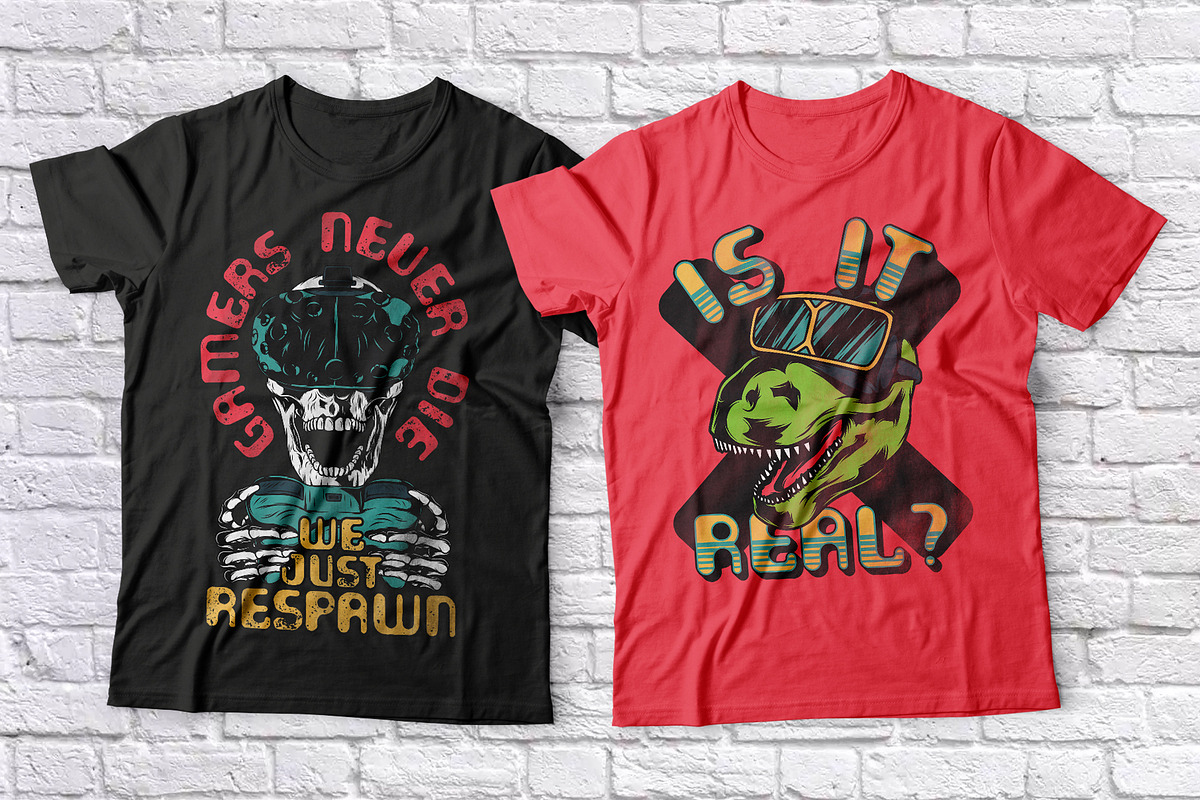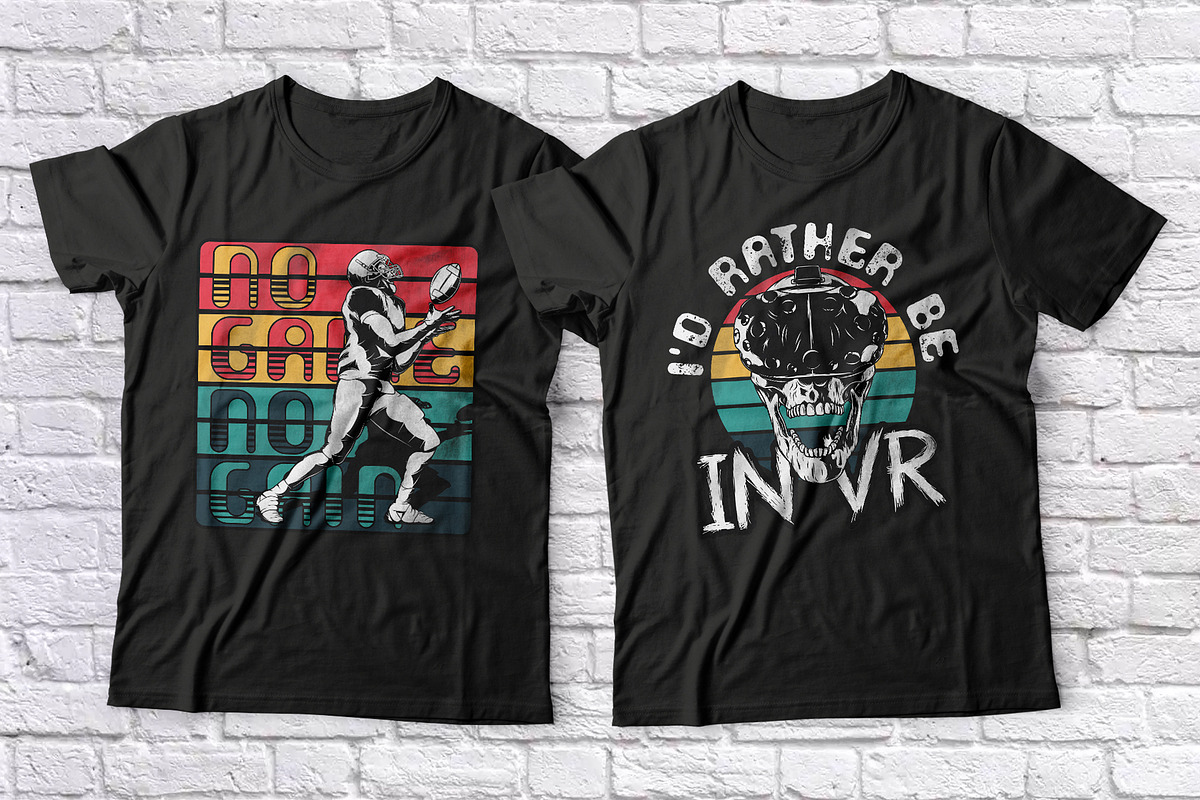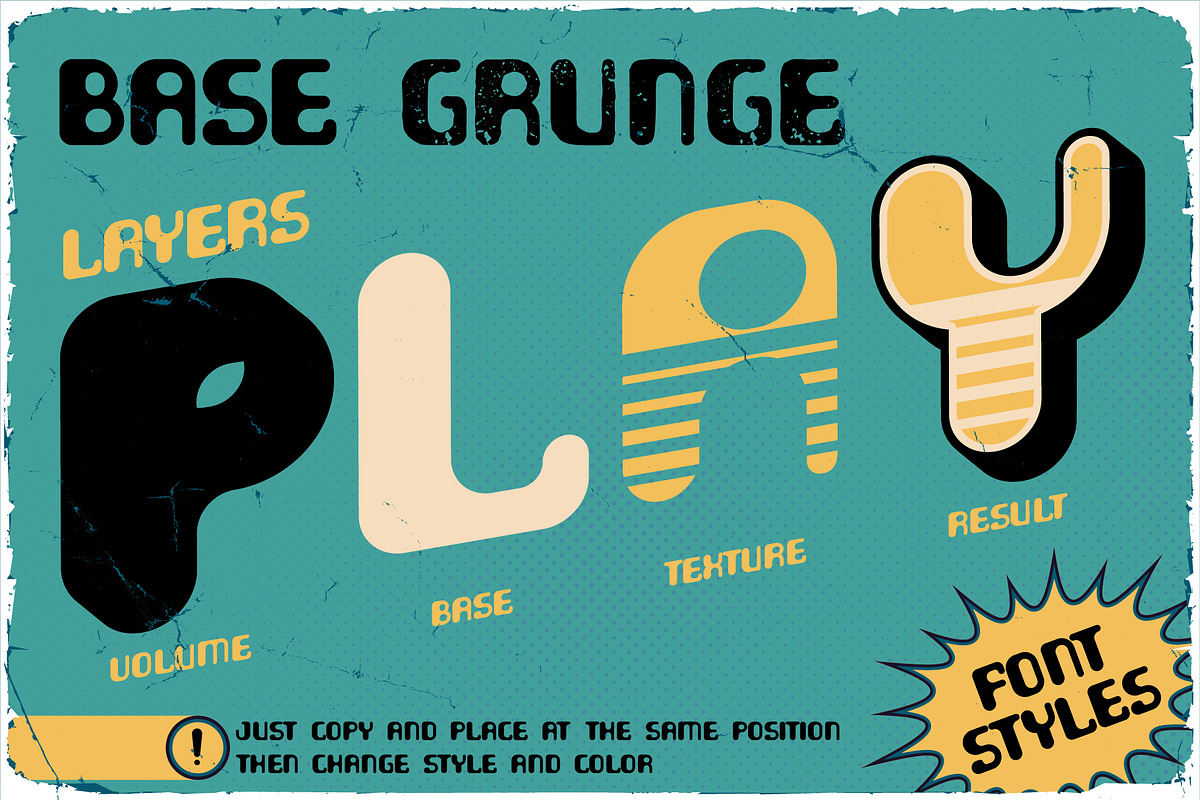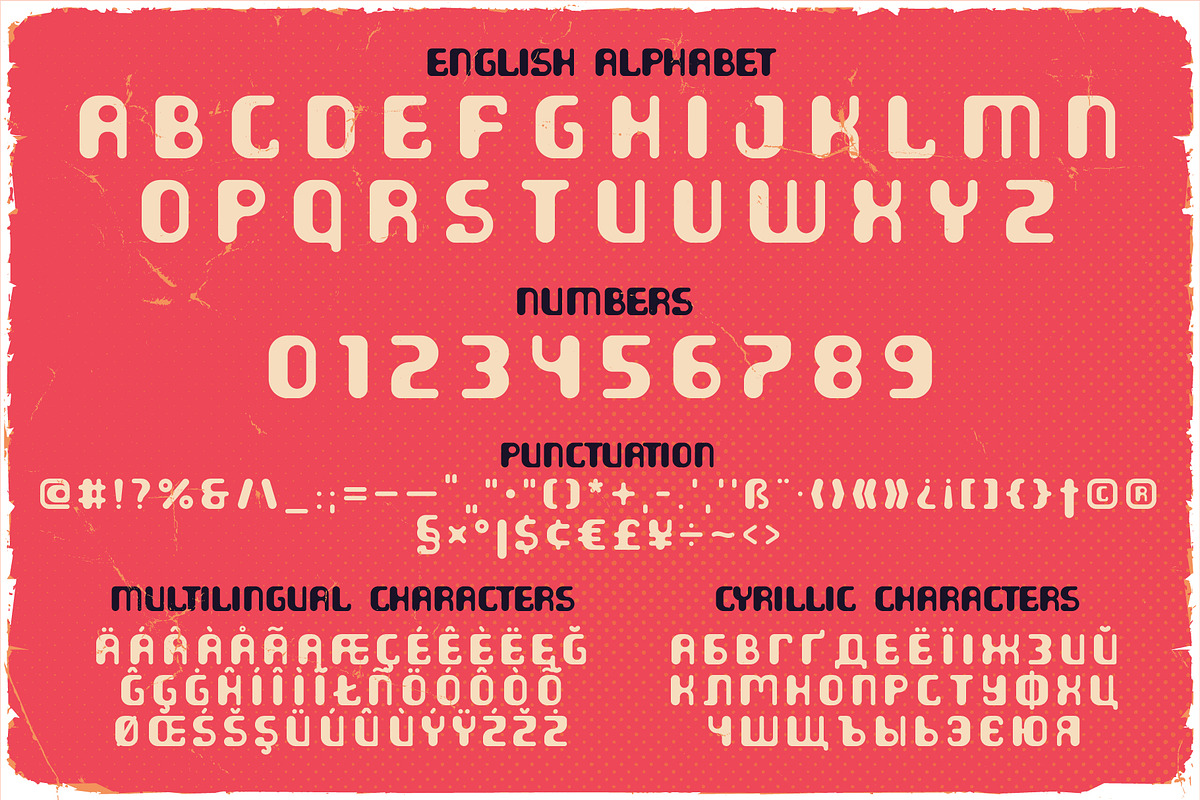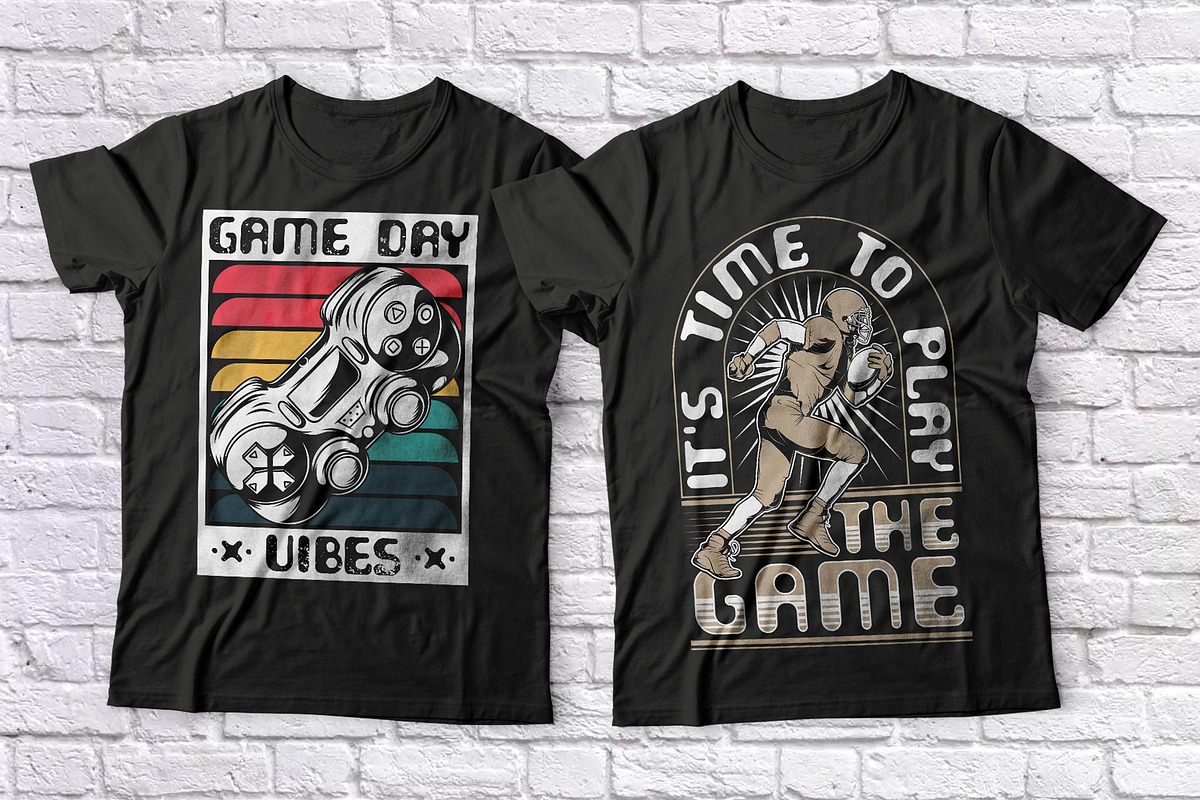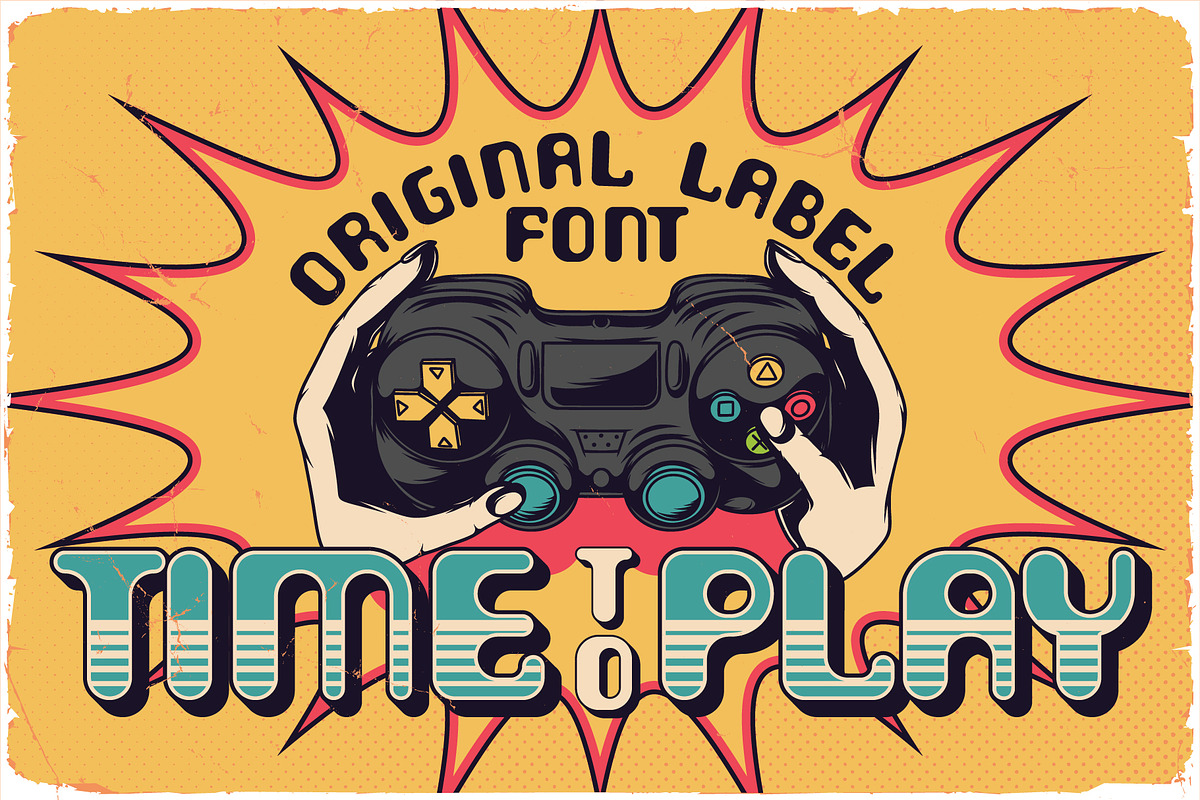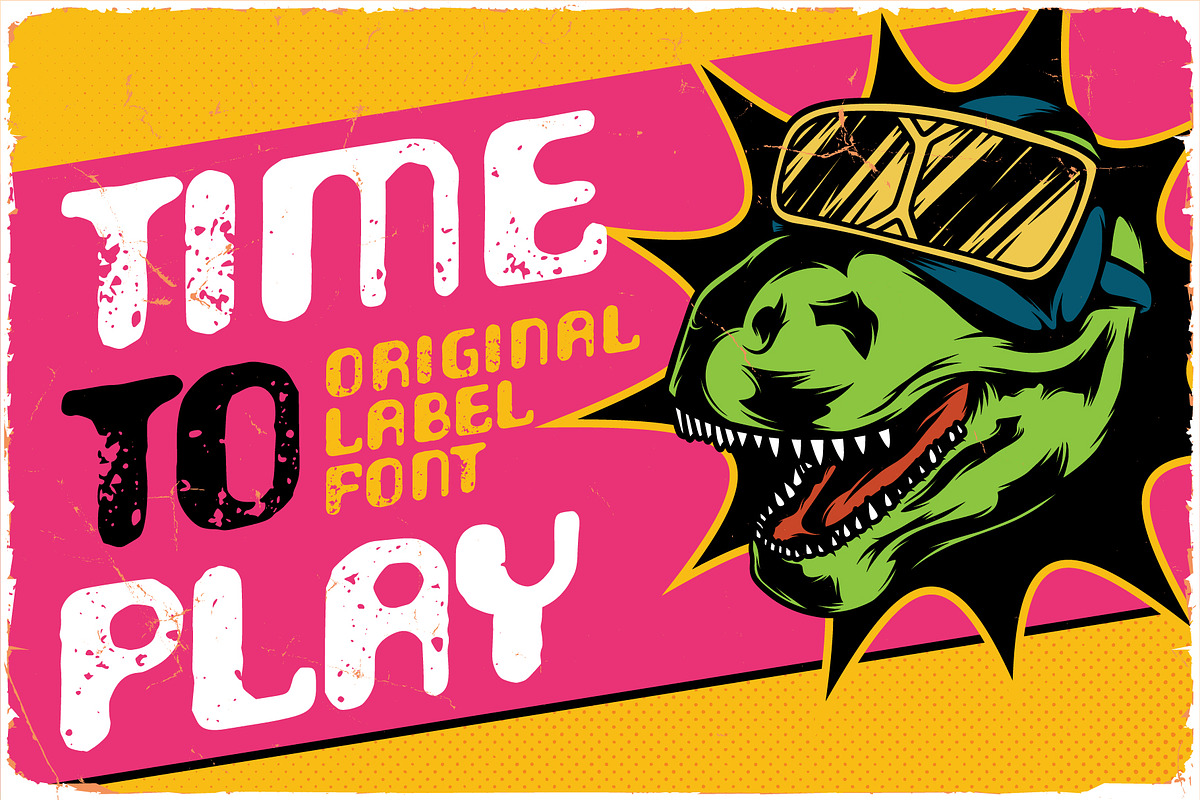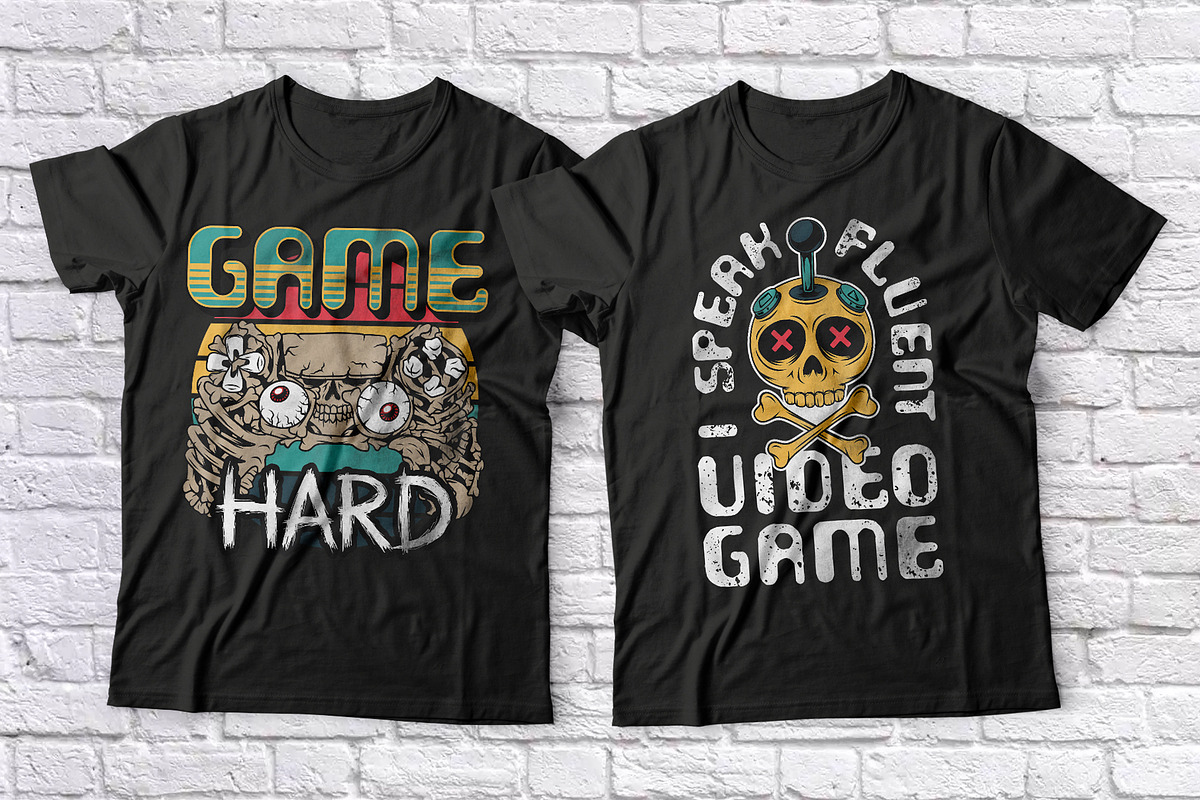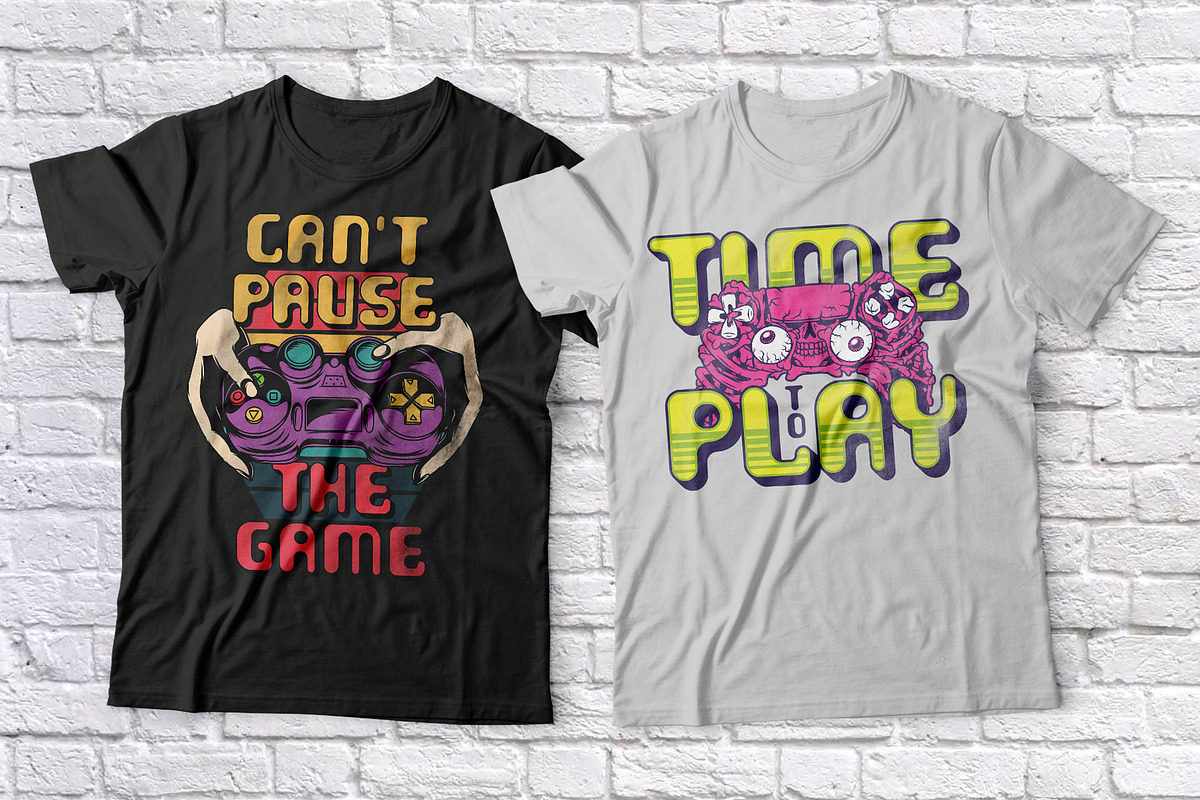
Time To Play
Introducing vintage label font named Time To Play. This font has a wide languages support with west european and cyrillic characters (check out all available characters on previews). The font family has four styles: Base, Grunge, Volume and Texture. All styles have the same metrics and kerning. This font will look good on any vintage styled designs like a poster, T-shirt, label, logo, etc.
- A lot of additional symbols and multilingual support.